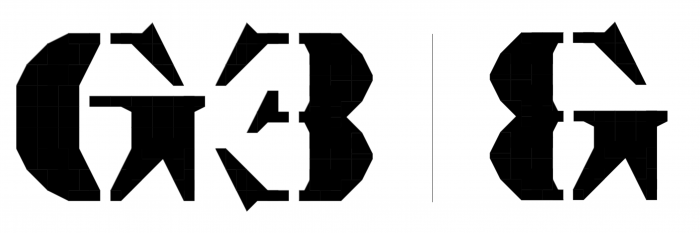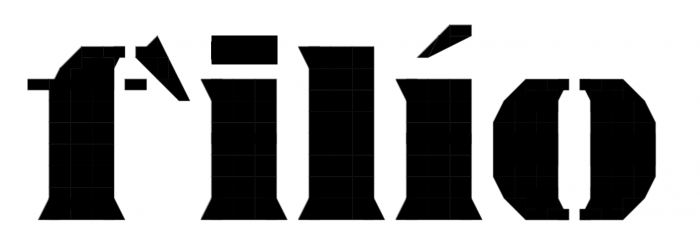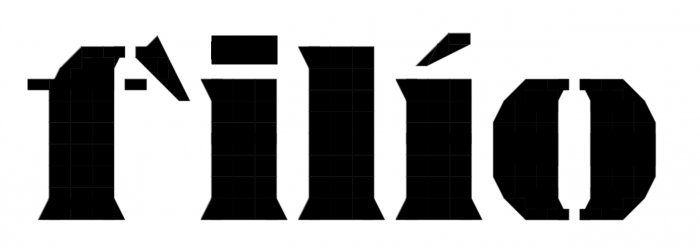
I repeat what I once said to frongile: I like this woodcutter style, it gives a lot of personality to the font. I would really enjoy seeing it completed. He doesn't do it, but would you finish it?
@Elmoyenique, if you mean adding accented characters - yes, if you mean other alphabets - maybe.
@Peter (Petruuccio): That's what I was talking about. Perfect for me. What do you think about building the & with parts of the G and the 3 as I show you?
Btw, the tilde (~) is missing on the ã.
@Elmoyenique Thanks for reminding me and also for good tip, I was thinking a while about the & just before I decided to take a break from this font :-)
I bumped into a compatibility/consistence issue on the diacritics. While dot above i in form of whole width section looks nice and natural, on other glyphs it looks weird and I automatically used dots. Does anybody have idea how to solve it universally?
One suggestion: don't change your diacritics, just modify the dot on the i.